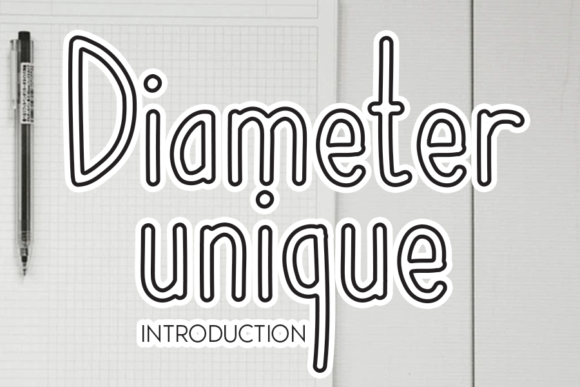
Unleash Your Creativity with the Perfect Font
Have you ever stared at a blank canvas, feeling like the perfect idea is just out of reach? You’re not alone. As creatives, we’ve all been there – struggling to bring our vision to life. But what if the key to unlocking your next masterpiece lay in the perfect font? Enter Diameter Unique Font, a gorgeous and unique outline display font that’s about to revolutionize your DIY projects.
Designed to stand out from the crowd, Diameter Unique Font is the perfect tool for designers looking to add a touch of elegance and sophistication to their work. With its clean lines and modern aesthetic, this font is sure to elevate any project, from invitations and posters to digital graphics and more. Whether you’re a seasoned pro or just starting out, Diameter Unique Font is an invaluable addition to your creative arsenal.
Diameter Unique Font Key Features
- Font Family: Diameter Unique Font is a sans-serif font family designed to provide a unique and modern look.
- Character Count: The font family includes over 200 characters, including uppercase and lowercase letters, numbers, and punctuation marks.
- Resolution: Optimized for high-resolution displays, making it perfect for use in digital design, including web, mobile, and print applications.
- Size and Style Variations: Available in multiple weights, from light to bold, and with various style options, including regular, italic, and bold italic.
- Unique Characteristics: The font features a distinctive, geometric design with rounded edges and a clean, modern aesthetic, making it ideal for use in branding, advertising, and editorial design.
Diameter Unique Font Review
Overall, I was quite excited to dive into the Diameter Unique Font, but unfortunately, it didn’t quite live up to my expectations. However, I do want to highlight the good and the bad, so you can decide for yourself.
- Unique Character Shapes: The font has some interesting character shapes that can add a touch of personality to your designs.
- Good Legibility: The font is generally easy to read, even at smaller font sizes.
- Clean and Minimal Design: The font’s design is clean and minimal, making it a good fit for modern and minimalist designs.
- Limited Character Set: The font’s character set is limited, which can make it difficult to use for complex text or languages.
- Lack of Variations: There are no bold or italic variations of the font, which can limit its versatility.
- Not Ideal for Body Text: While the font is legible, it’s not ideal for body text, and may be better suited for headlines or titles.
The Diameter Unique Font has some interesting features, but its limitations hold it back from being a truly versatile font. If you’re looking for a unique font for a specific project, it may be worth considering, but for general use, I would recommend looking elsewhere.
Diameter Unique Font Practical Application Guide
For best results, use the font in a bold or italic style to add visual interest.
For advanced users, experiment with layer styles and effects to enhance the font’s unique characteristics.
For best results, use the font sparingly and in bold or italic styles to add emphasis.
Diameter Unique Font is ideal for:
- Emphasized text
- Unique and creative designs
Alternatives to “Diameter Unique Font” for Designers
Montserrat is a modern sans-serif font that is highly versatile and works well for a variety of designs, from logos to body text. It’s a great choice for designs that require a clean and minimalist aesthetic. Montserrat is a more geometric font compared to Diameter Unique Font, which has a more rounded feel. It’s ideal for use in digital products, such as apps and websites.
Lato is a sans-serif font that is highly legible and works well for body text. It’s a great choice for designs that require a clean and elegant aesthetic. Lato is a more rounded font compared to Diameter Unique Font, which makes it suitable for use in print materials, such as brochures and business cards. It’s also a great choice for use in digital products, such as websites and mobile apps.